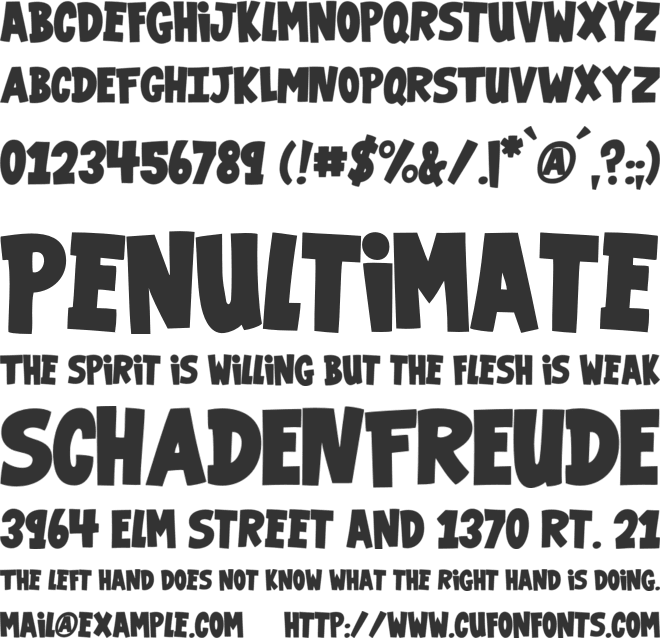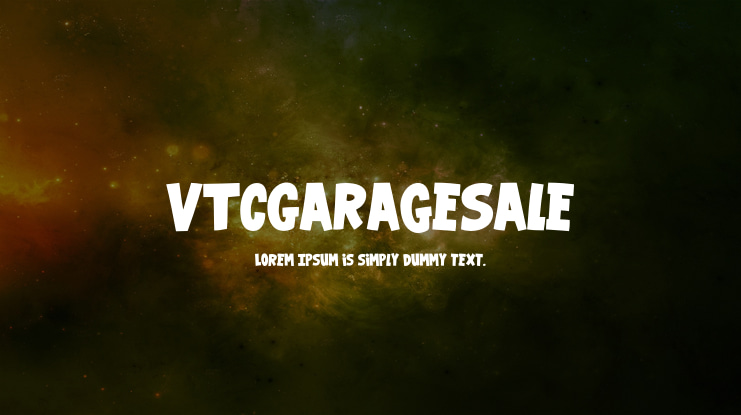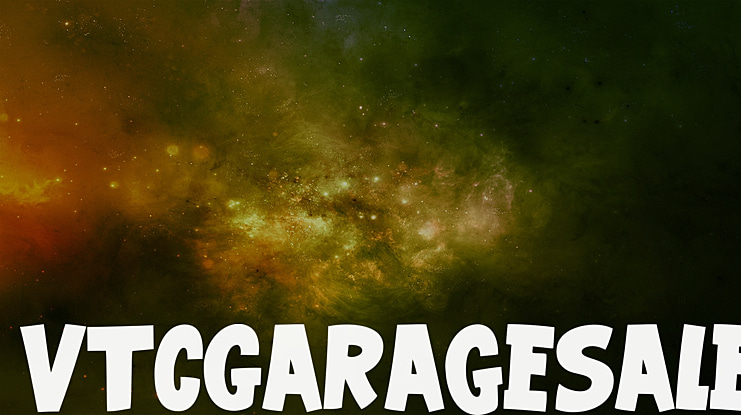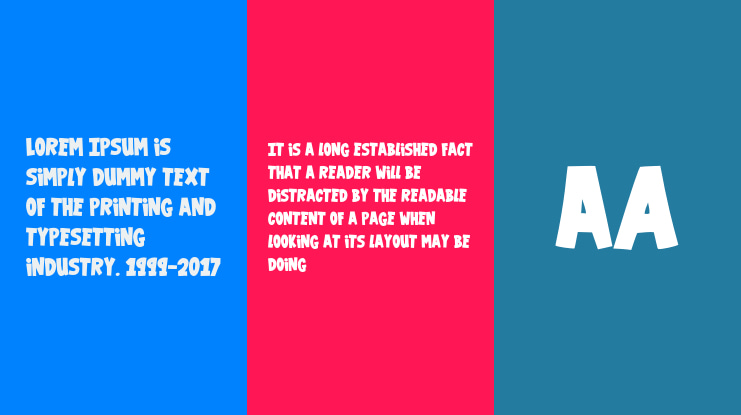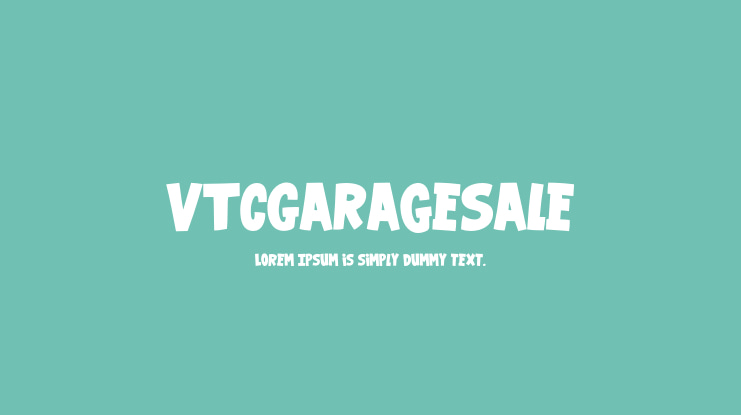
This is just a fun poster font, I see Garage sale signs all around my house all the time and thought it would be fun to make something that reminded me of them so here it is! Hope yas enjoy!